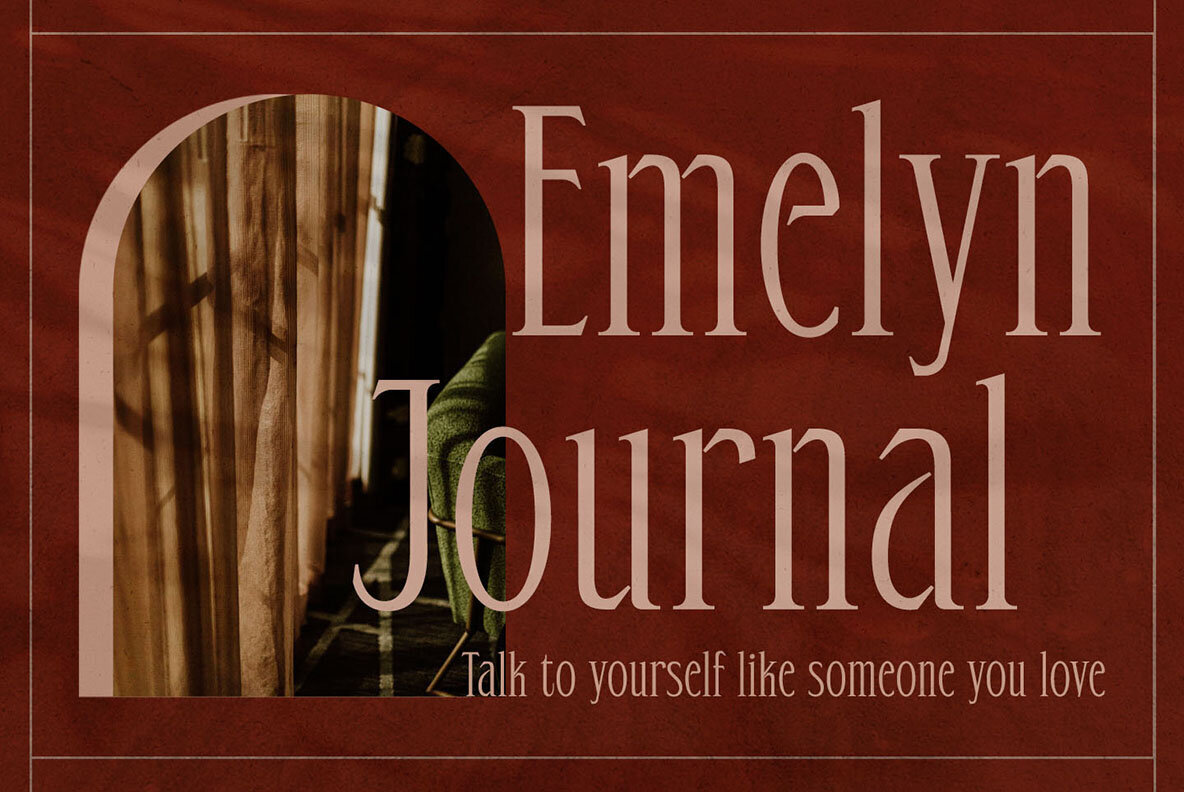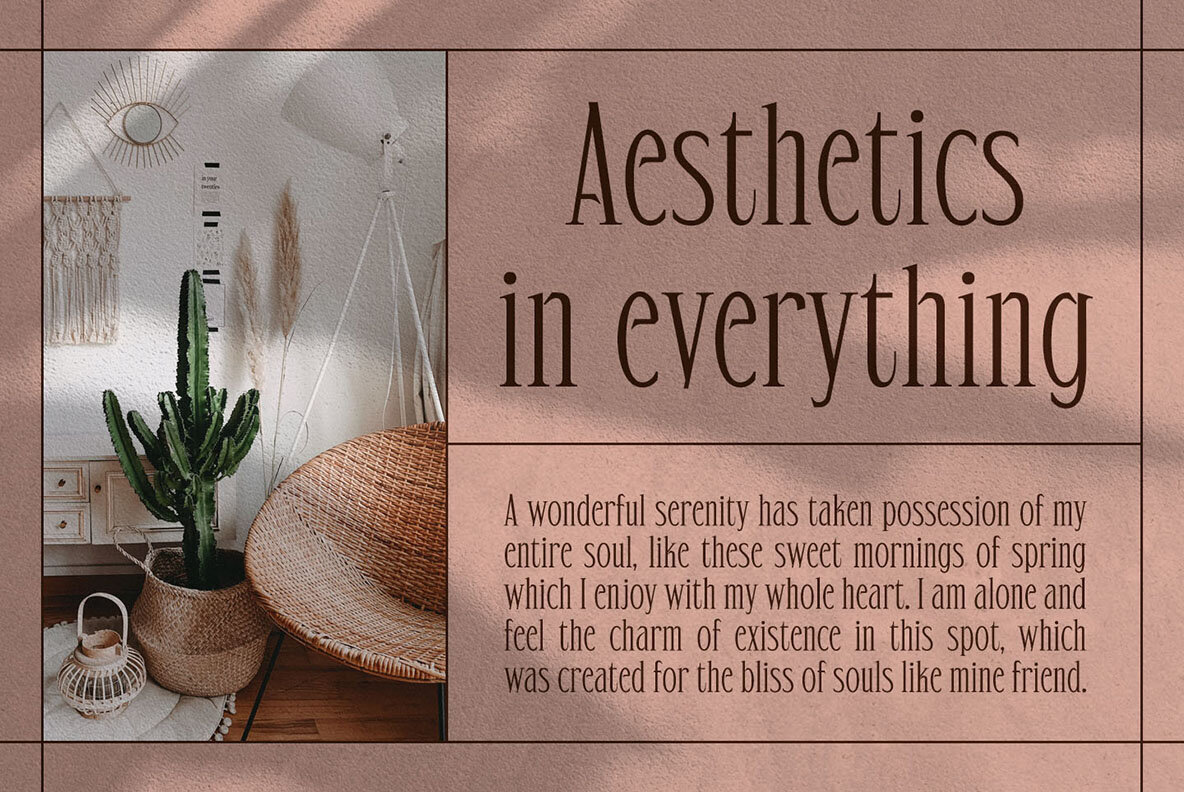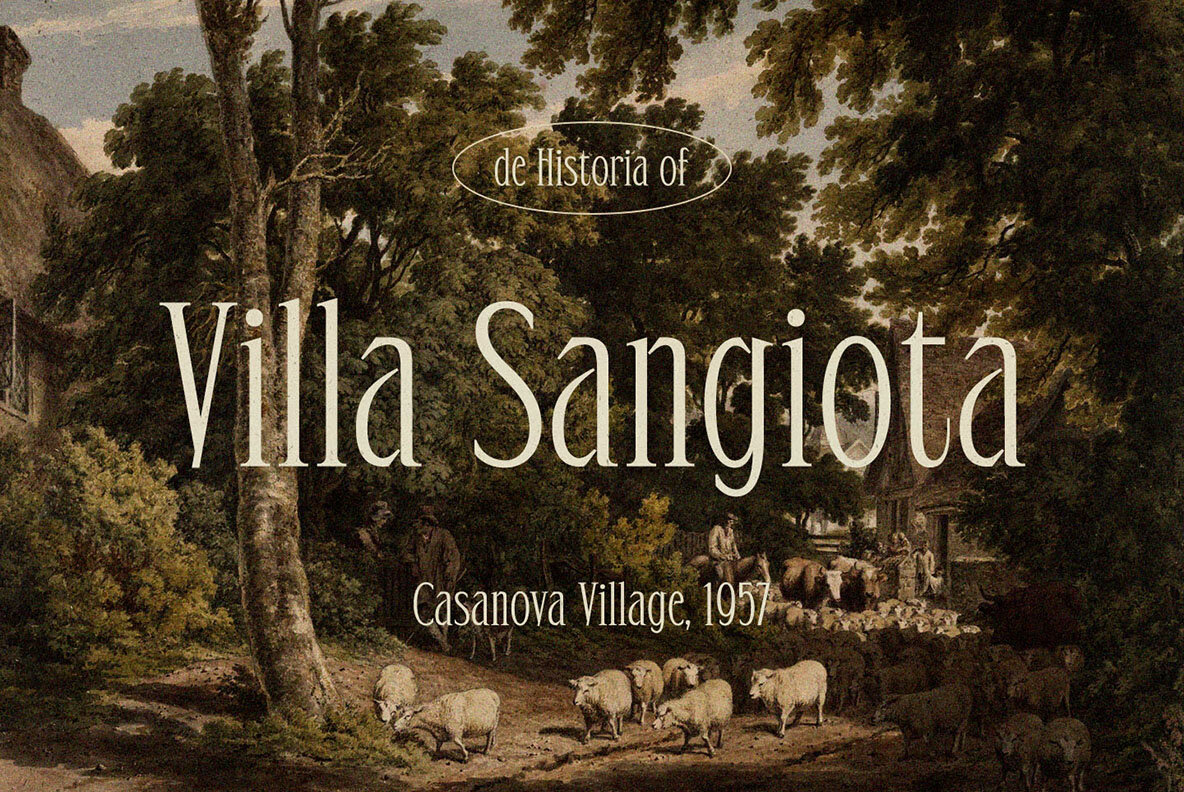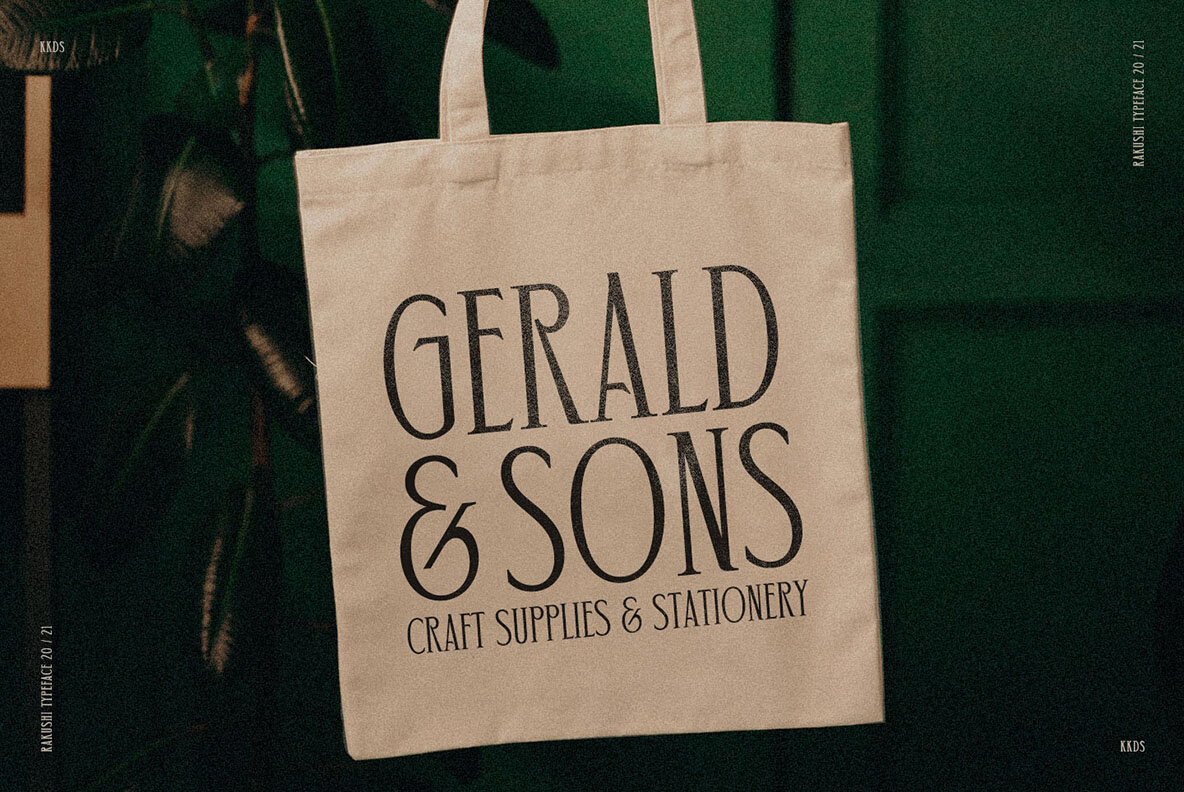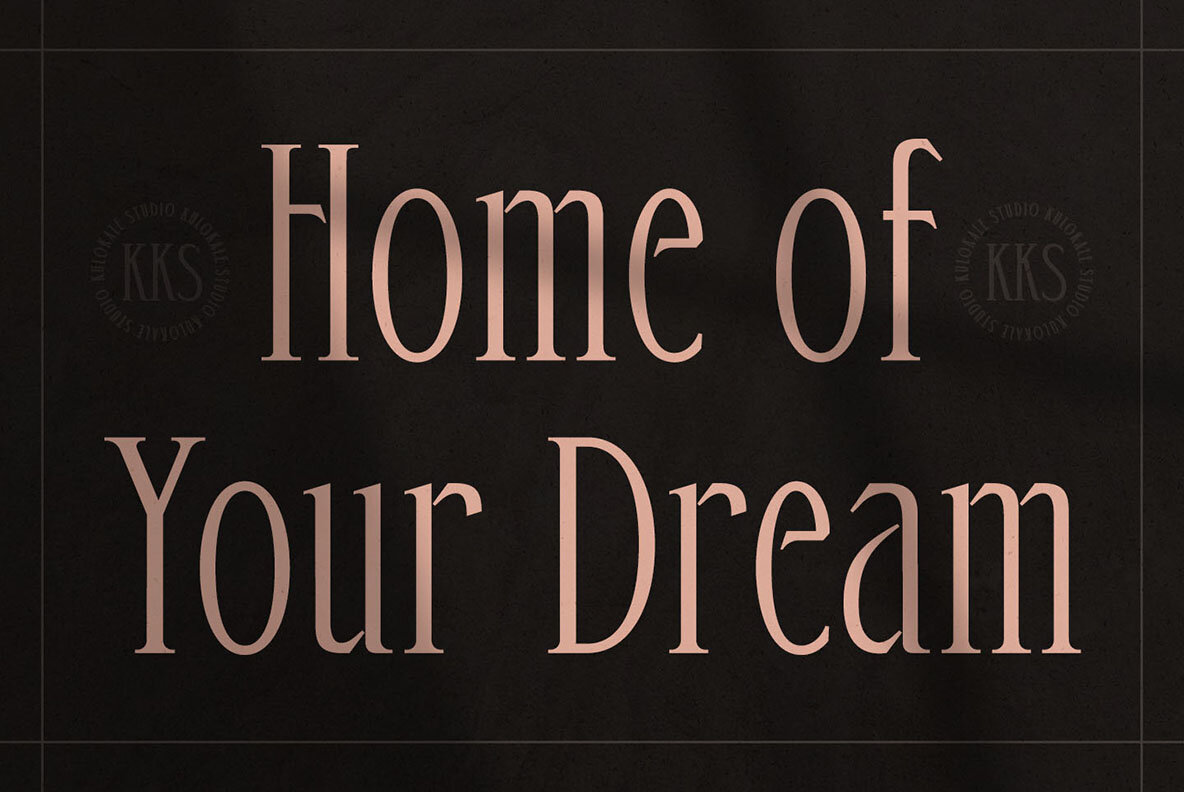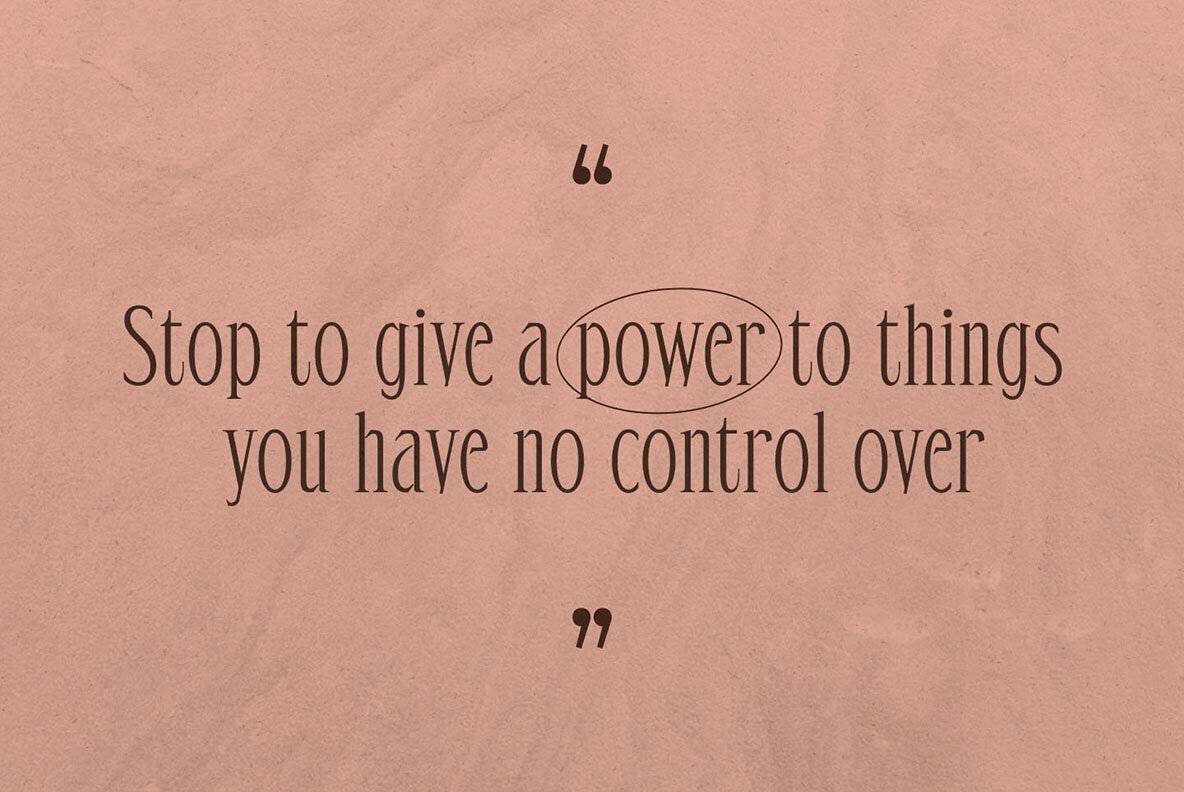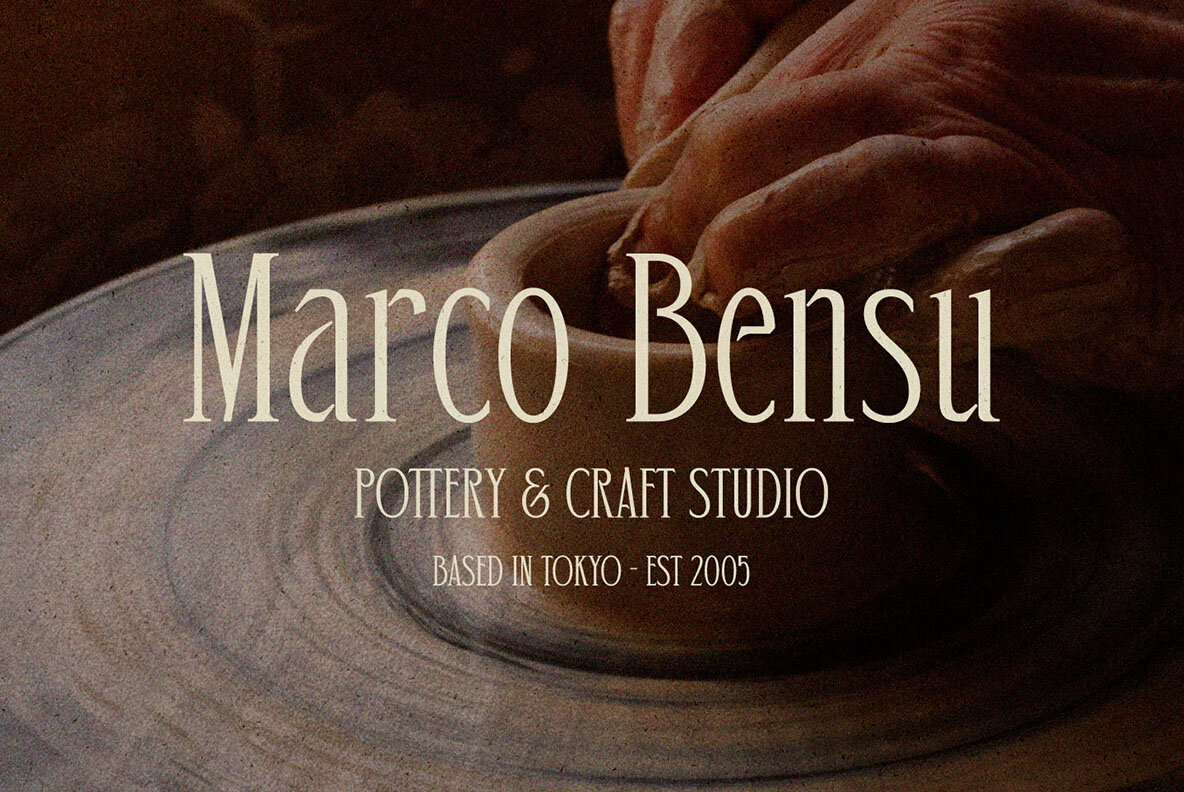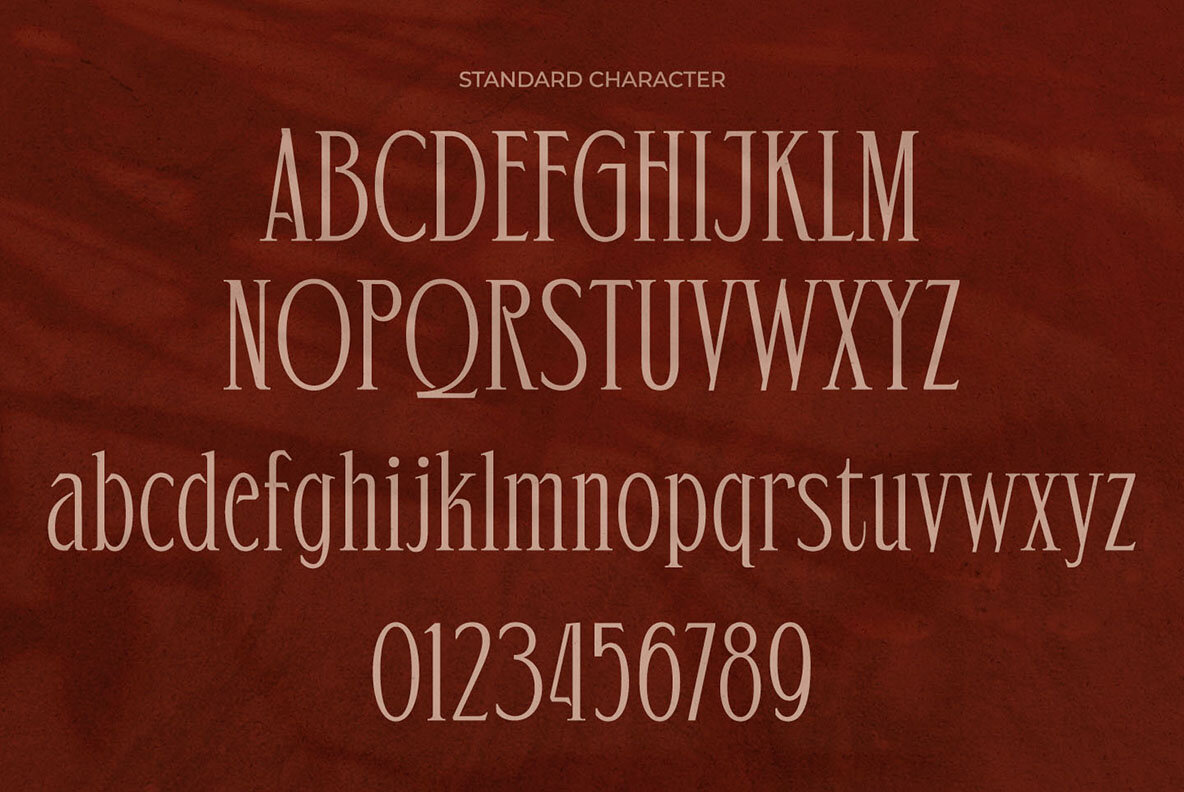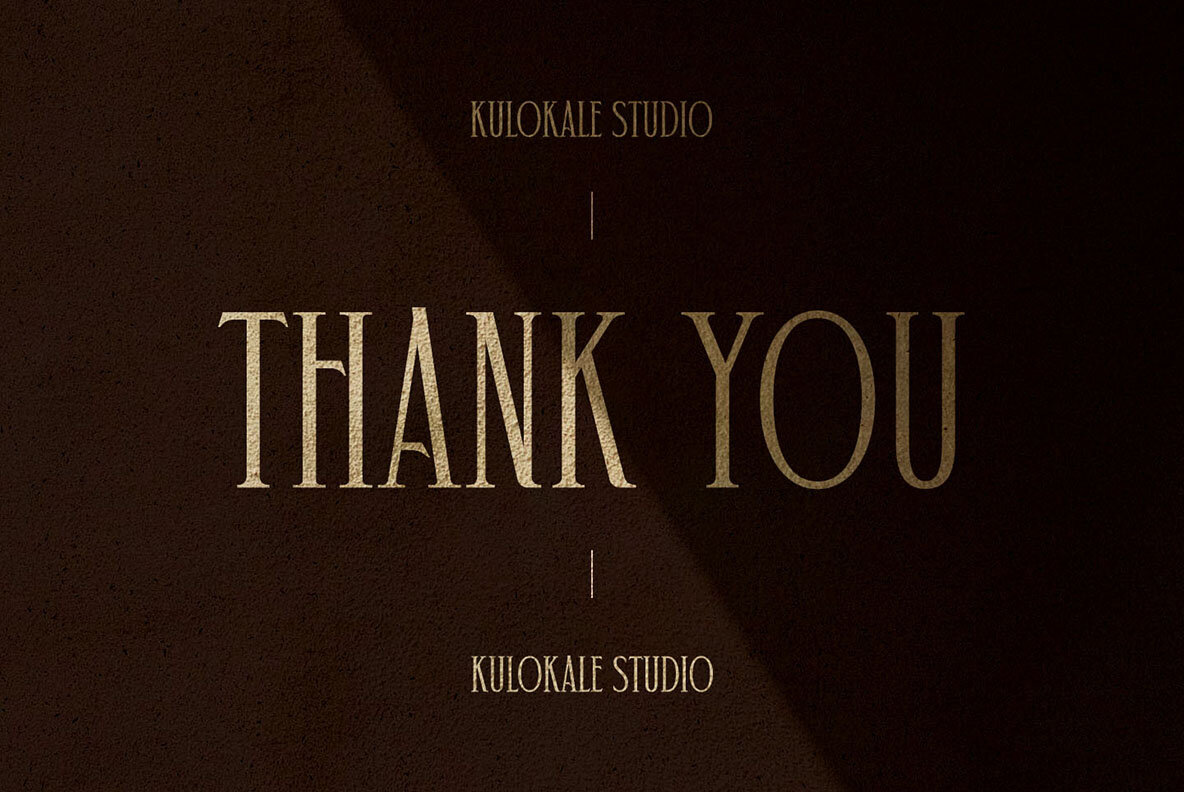
Rakushi Font
Rakushi is a contemporary and classic display serif font. Rakushi is well-suited for advertising, branding, logotypes, packaging, titles, headlines and editorial design. This font comes in two styles, Regular and Oblique Version.